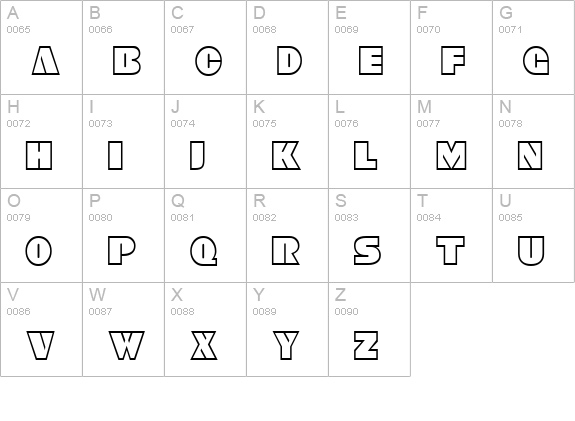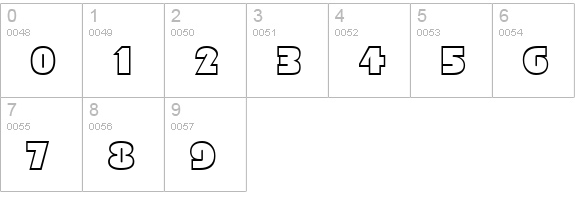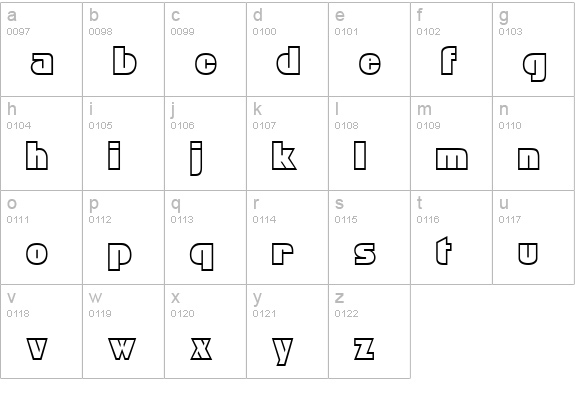
Bleucher Font Details
Bleucher font is a modern and stylish typeface that exudes elegance and sophistication. With its sleek lines and sharp edges, this font is perfect for creating eye-catching designs that demand attention. Whether you're working on branding, advertising, or any other creative project, Bleucher font will add a touch of class and professionalism. The best part about Bleucher font is that it is completely free to download. You can get your hands on this stunning typeface at FontsMarket.com and start using it in your projects right away. Don't miss out on the opportunity to enhance your designs with the timeless beauty of Bleucher font. Download it now and let your creativity soar!